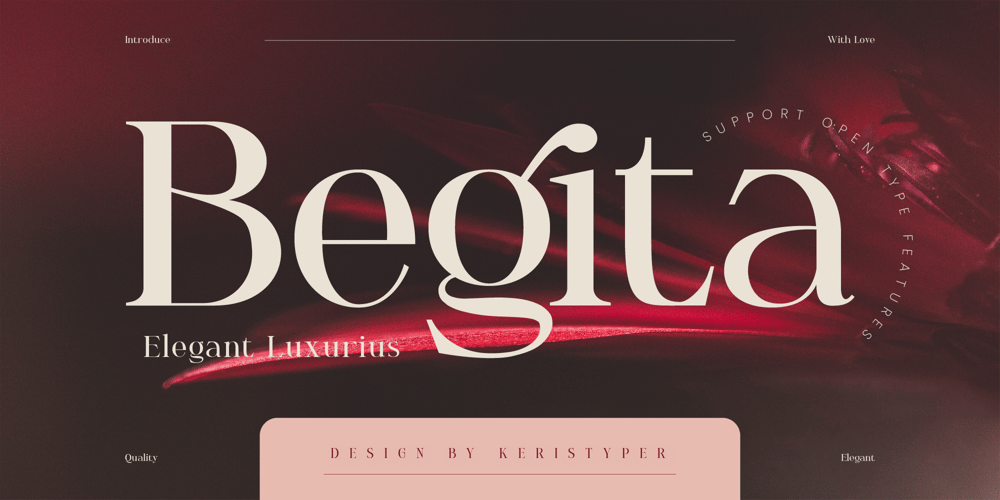
Begita
Begita font
Begita Font Family was designed by Tezar Tantular and published by Keristyper Studio. Begita contains 1 styles and family package options. Introducing Begita font, a perfect fusion of elegance and luxury. With its exquisite curves and graceful strokes, this font exudes sophistication and opulence in every character. Designed for those seeking a touch of grandeur in their designs, Begita font elevates any project, from high-end branding to prestigious invitations. Its timeless charm and refined aesthetics make it a must-have for those who appreciate the finer things in life.Featured: Standard, Uppercase & Lowercase Numeral & Punctuation Multilingual : ä ö ü Ä Ö Ü ß ¿ ¡ Alternate & Ligature PUA encoded We recommend programs that support the OpenType feature and the Glyphs panel such as Adobe applications or Corel Draw, so you can use all the variations of the glyphs.Hope you enjoy our fonts!